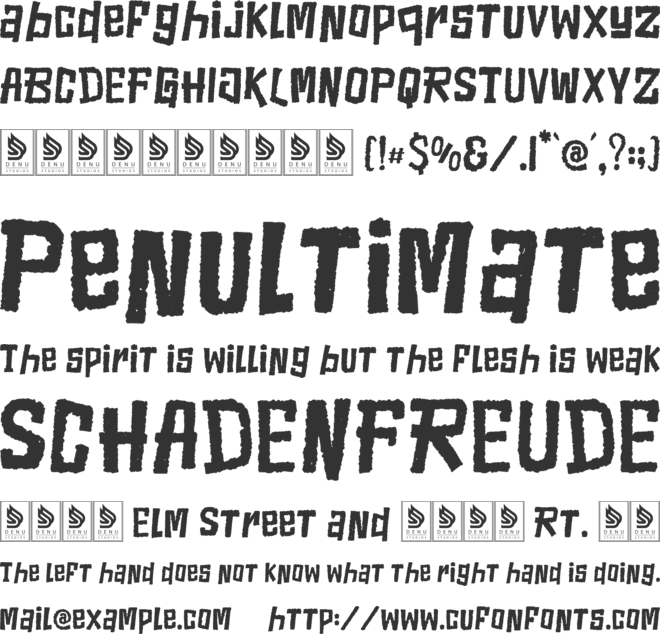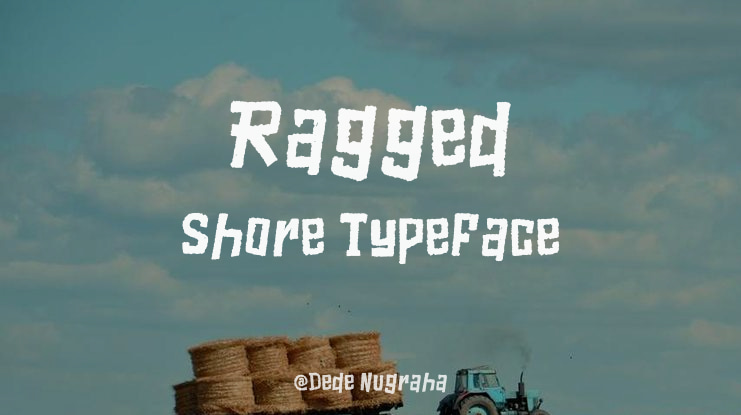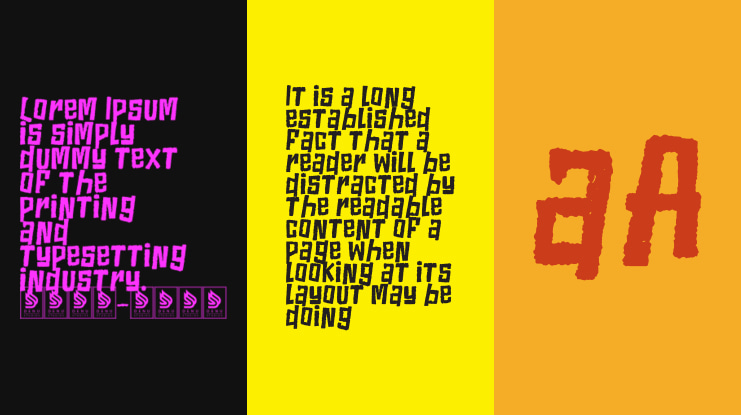
Ragged Shore | Rustic Brush Font, is suitable for any projects such as: logos, branding projects, homeware designs, product packaging, mugs, quotes, posters, shopping bags, t-shirts, book covers, name card, invitation cards, greeting cards, label, photography, watermark, special events, and all your other lovely projects that need a Brush Font taste.